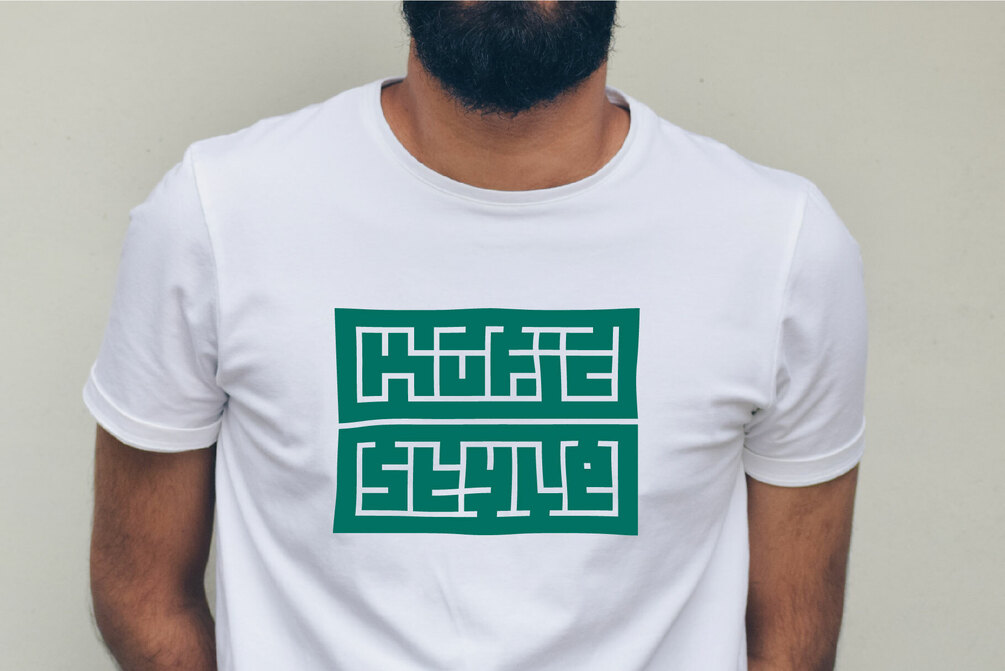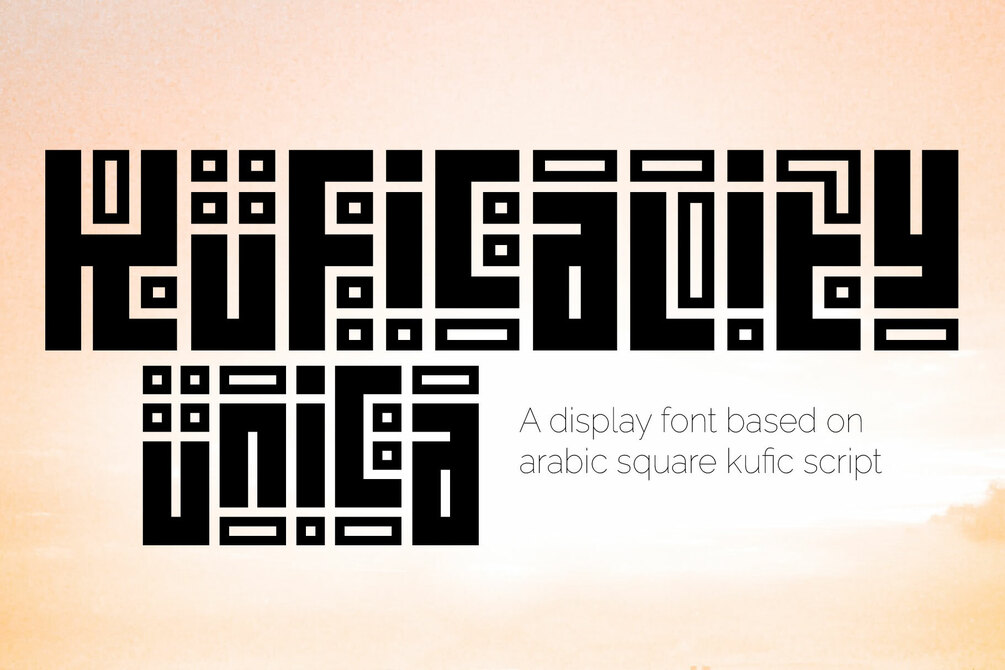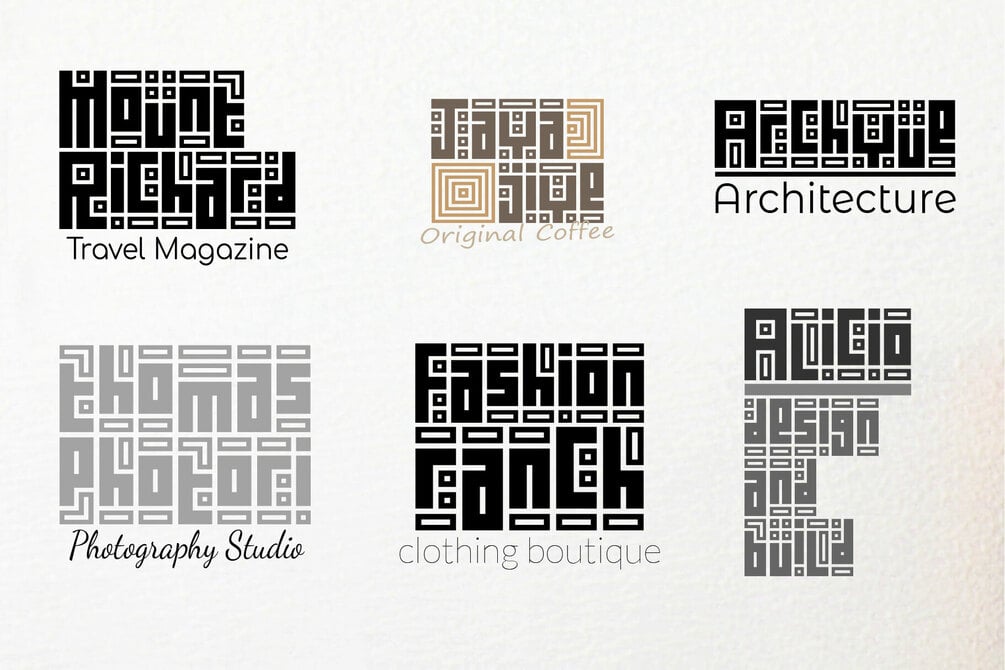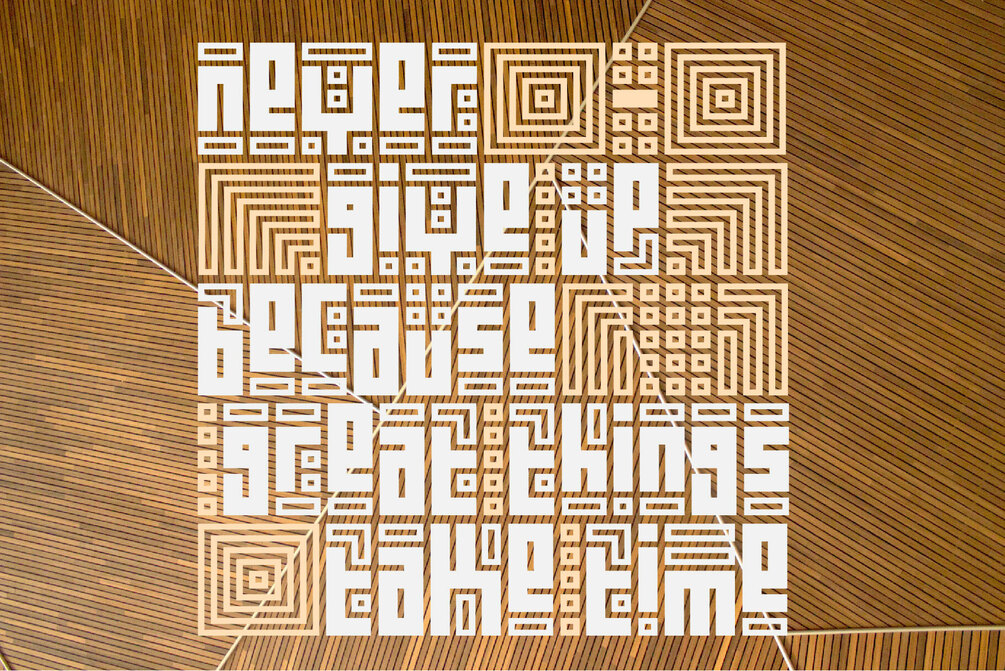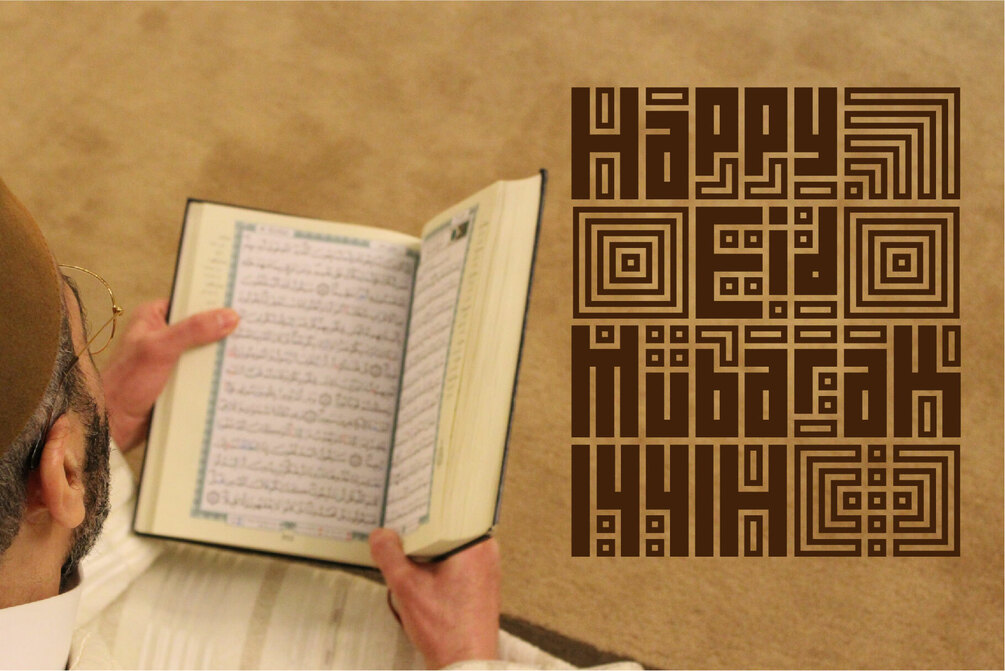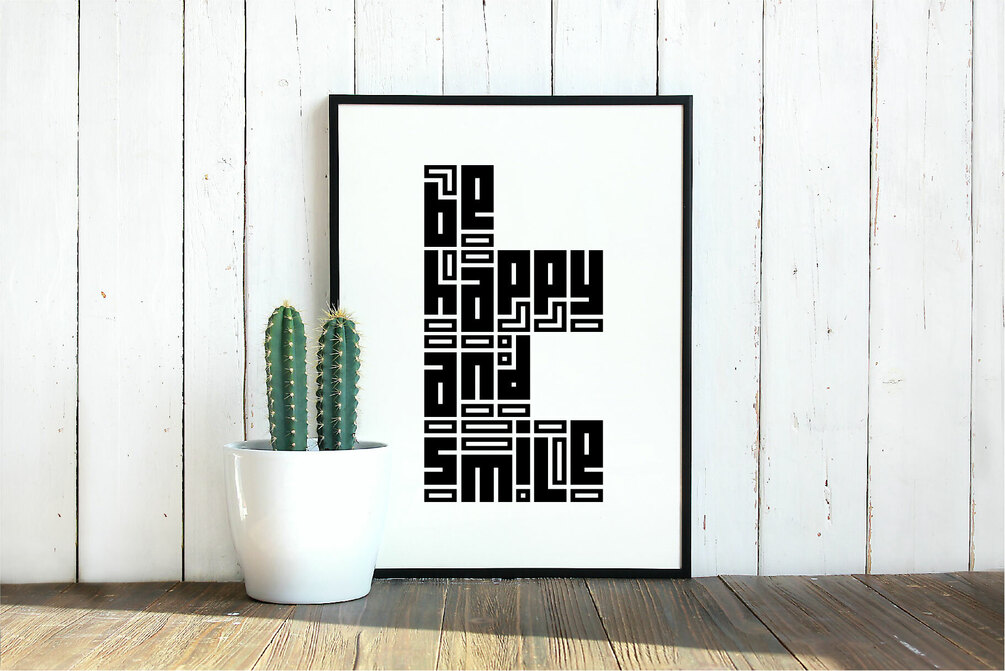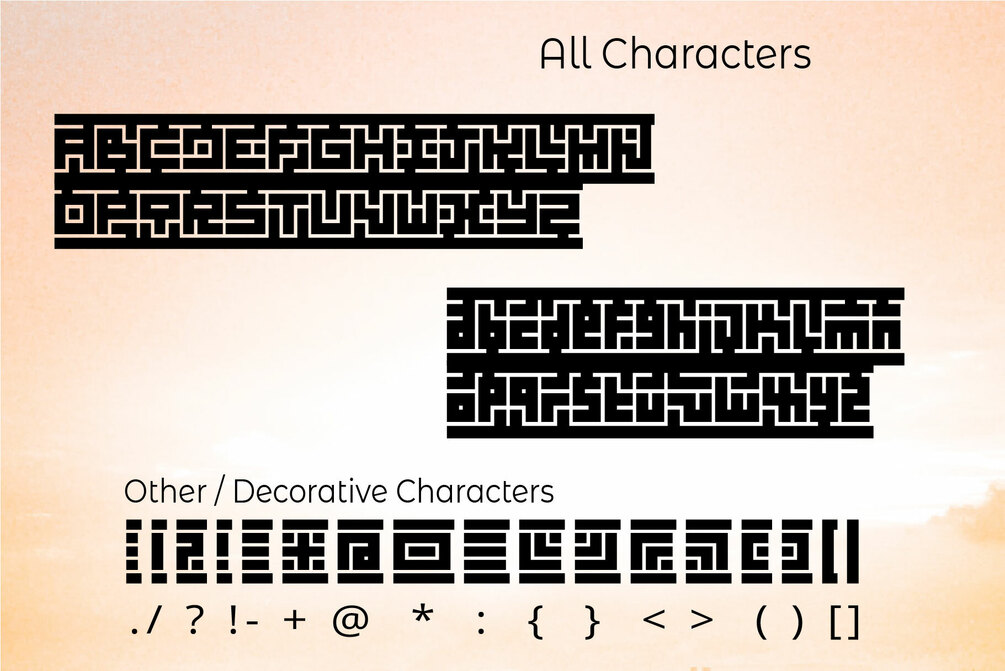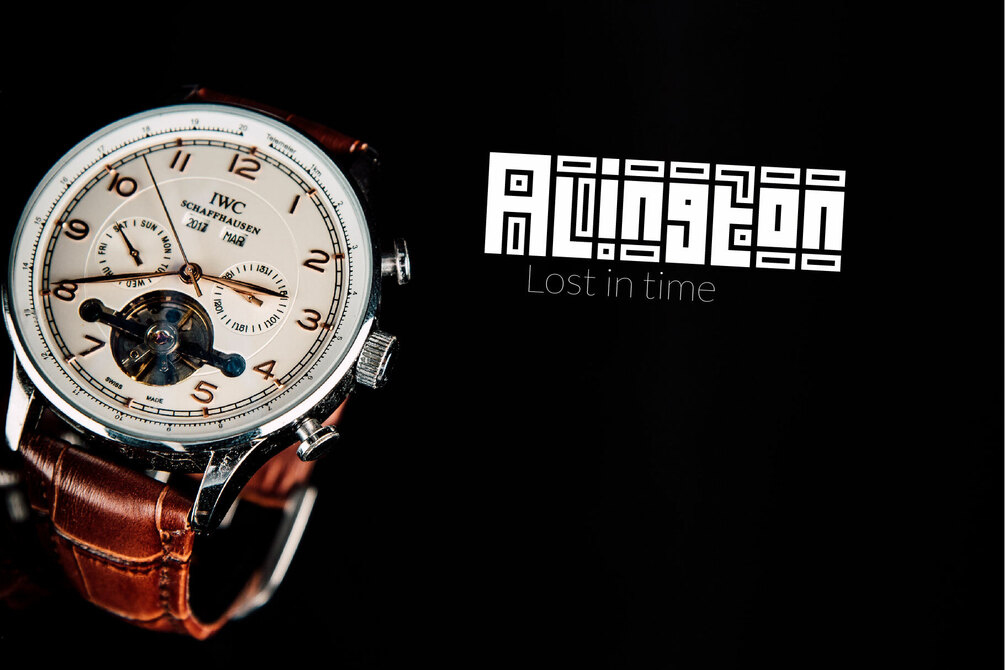
Kuficality Unica - Tall Kufic Square Calligraphy (Stylized)
Introducing Kuficality Unica
A display font based on Arabic Square Kufic script
Kuficality Unica is a font inspired by Arabic square calligraphy. It's great as logos for business and personal identity. Unique design for your business in a few seconds.
Kuficality Unica gives an elegant and classic impression but is still modern with a straight square cut in each letter.
Kuficality Unica is suitable for various themes, but more specifically in Islamic themes. Widely used by Muslims to create texts in latin with kufic calligraphy style.
This font is also perfect for quotes, headings, logos, invitations, social media posts, profile pictures, advertisements, product packaging, product designs, label, photography, watermark, special events and more!
Full characters include upper and lowercase, letters, numbers, symbols and several decorative characters.